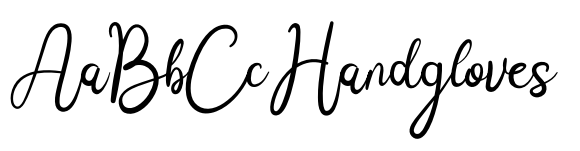
The Janji Cinta Font Family was designed by Virgiawan Listanto and published by Stringlabs Creative Studio. Janji Cinta contains 1 styles. More about this family
Janji Cinta is a lovely handwritten font, created with the help of a beautiful brush pen. Fall in love with its incredibly versatile style and use it to create gorgeous wedding invitations, beautiful stationary art, eye-catching social media posts, and much more!
Designers: Virgiawan Listanto
Foundry: Stringlabs Creative Studio
Janji Cinta